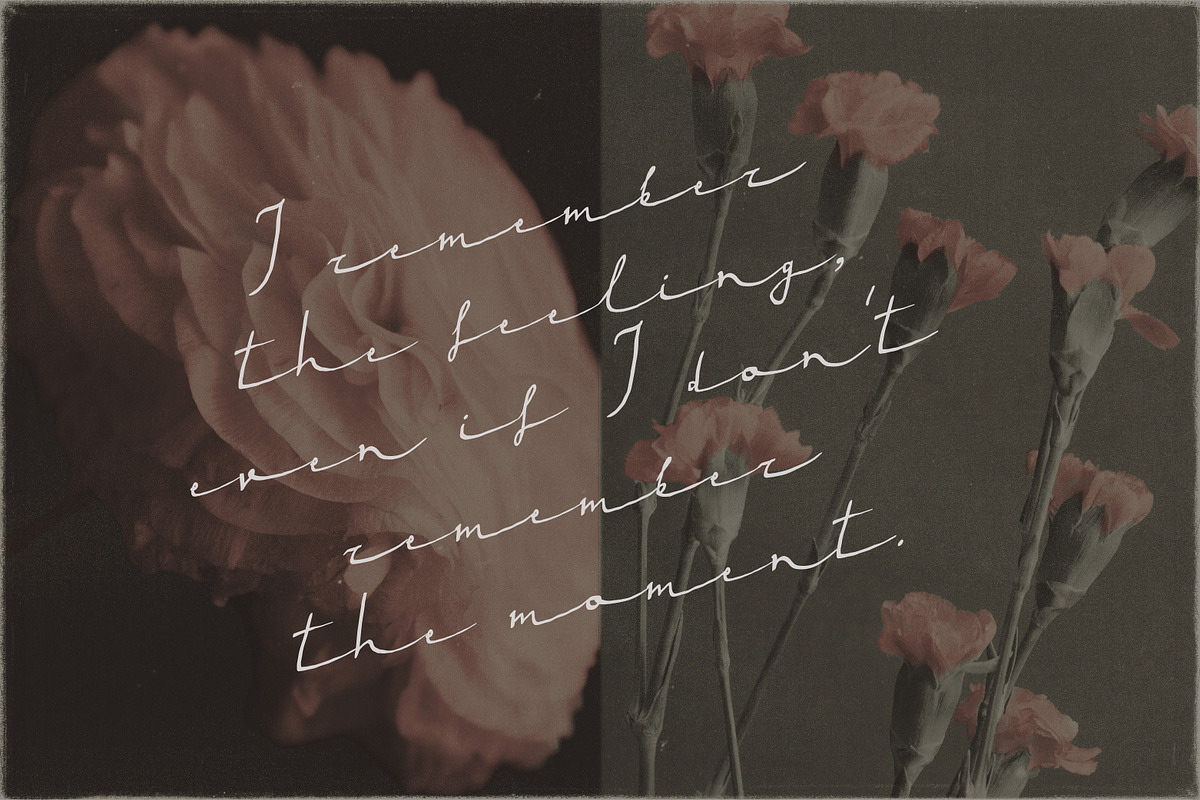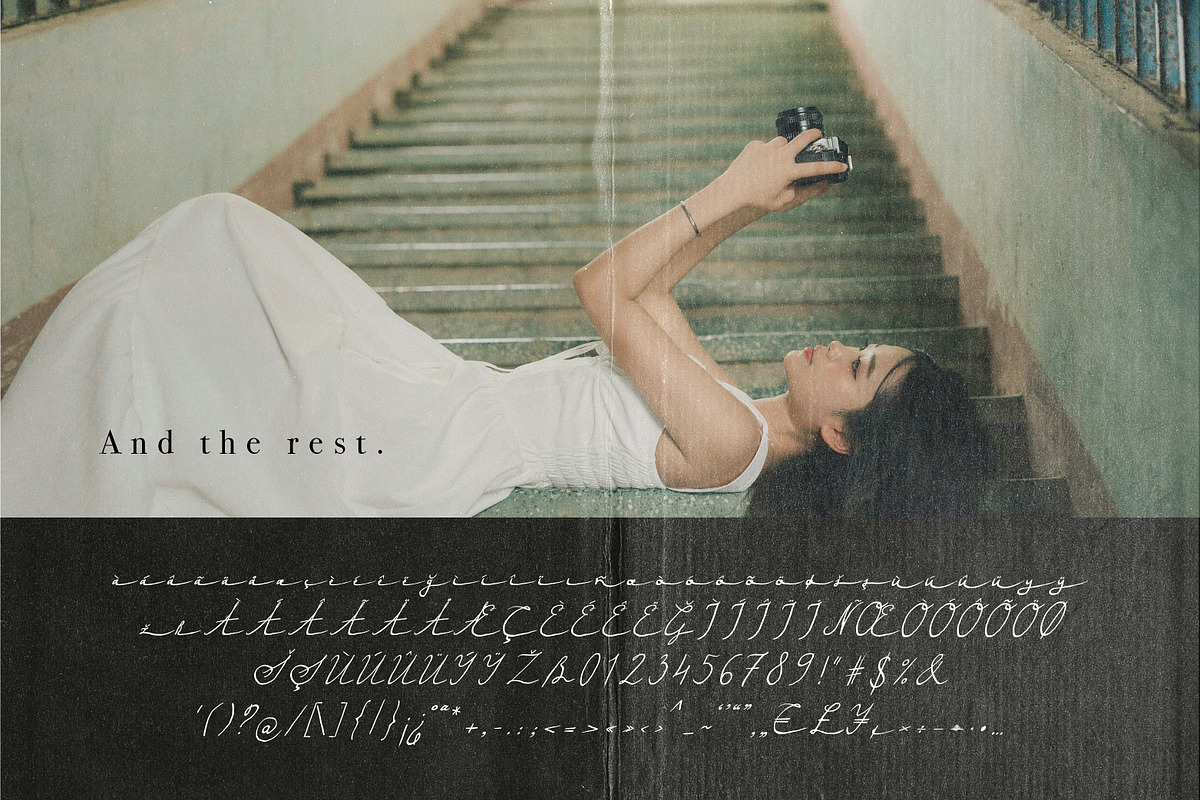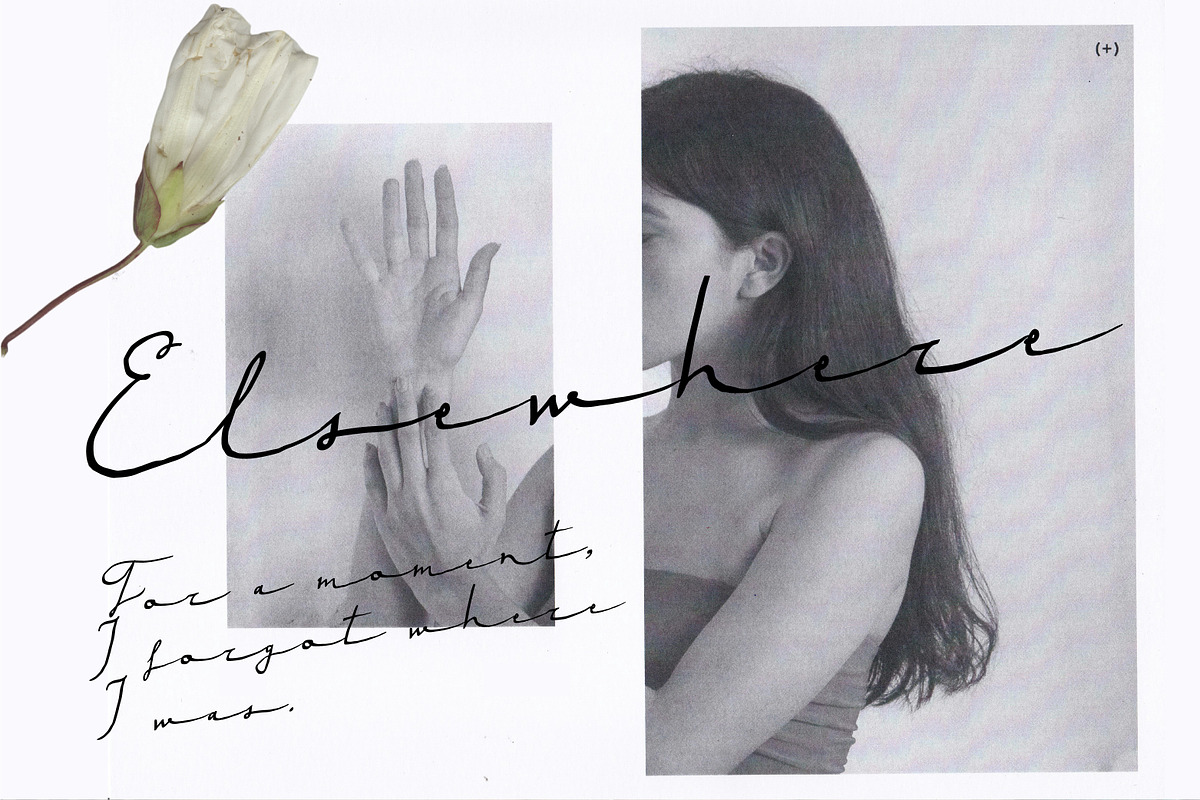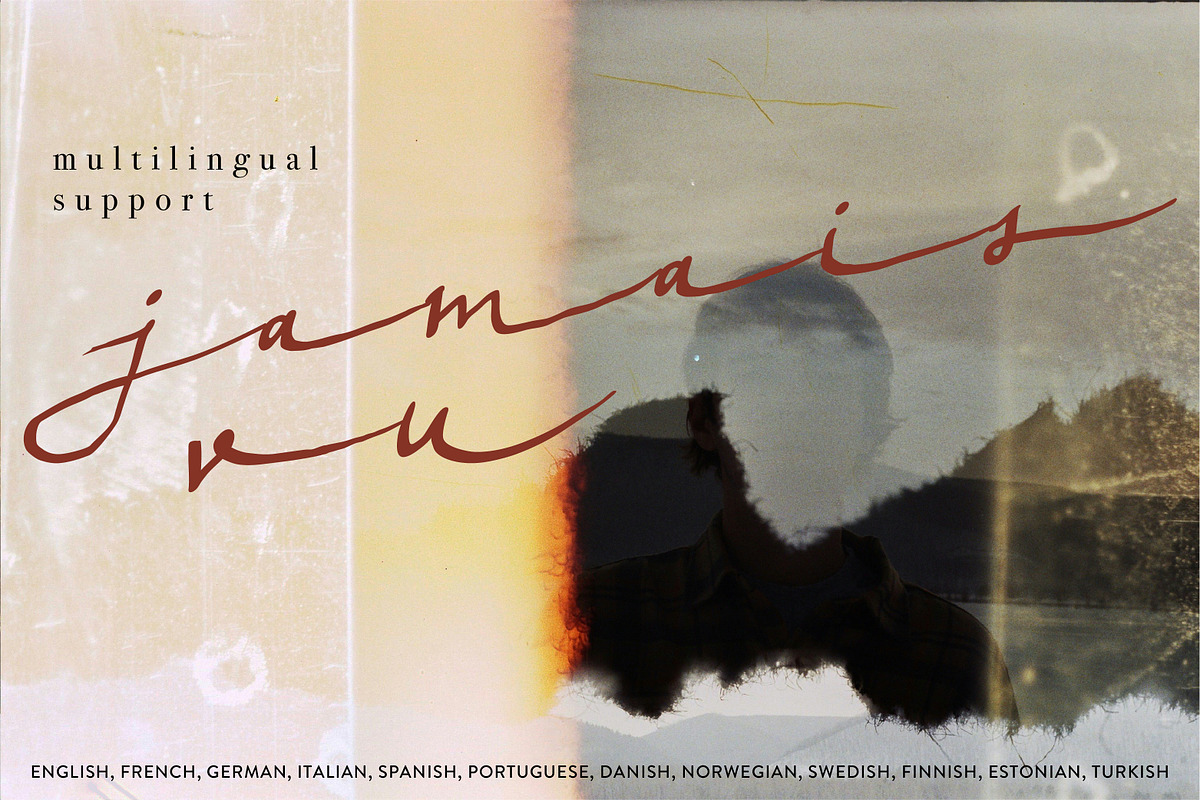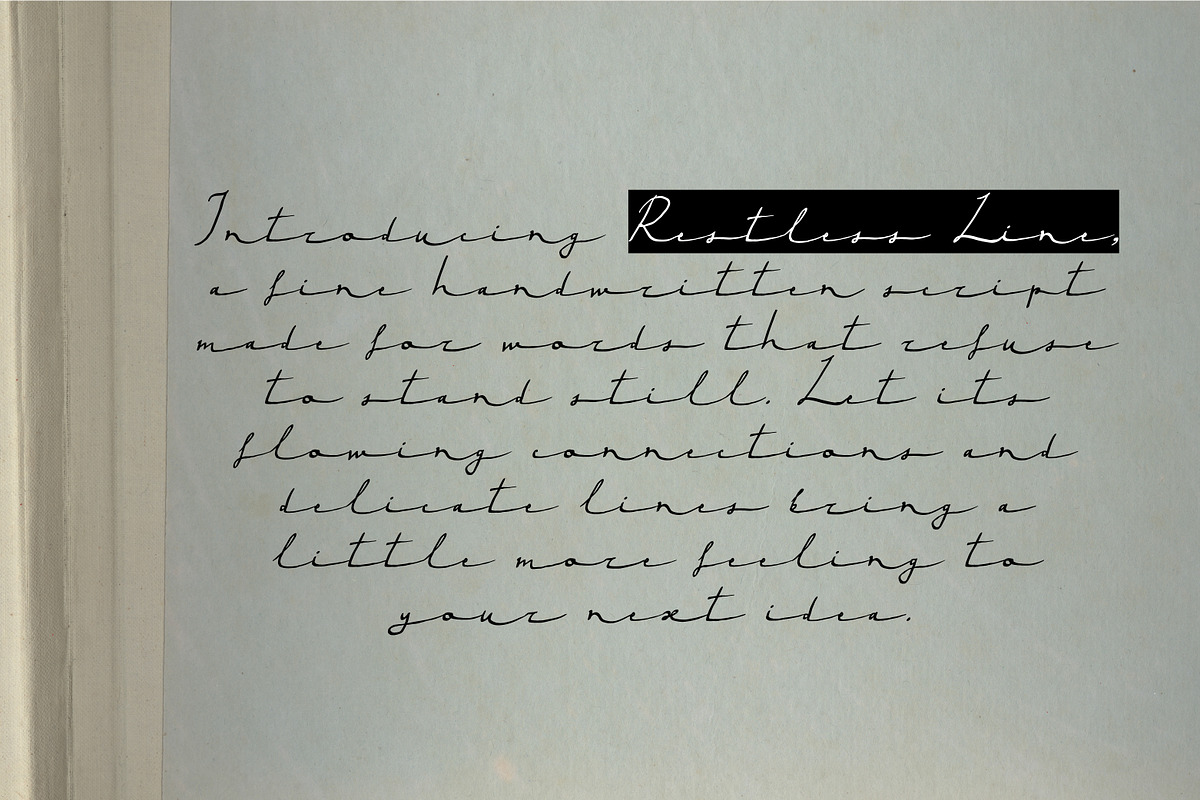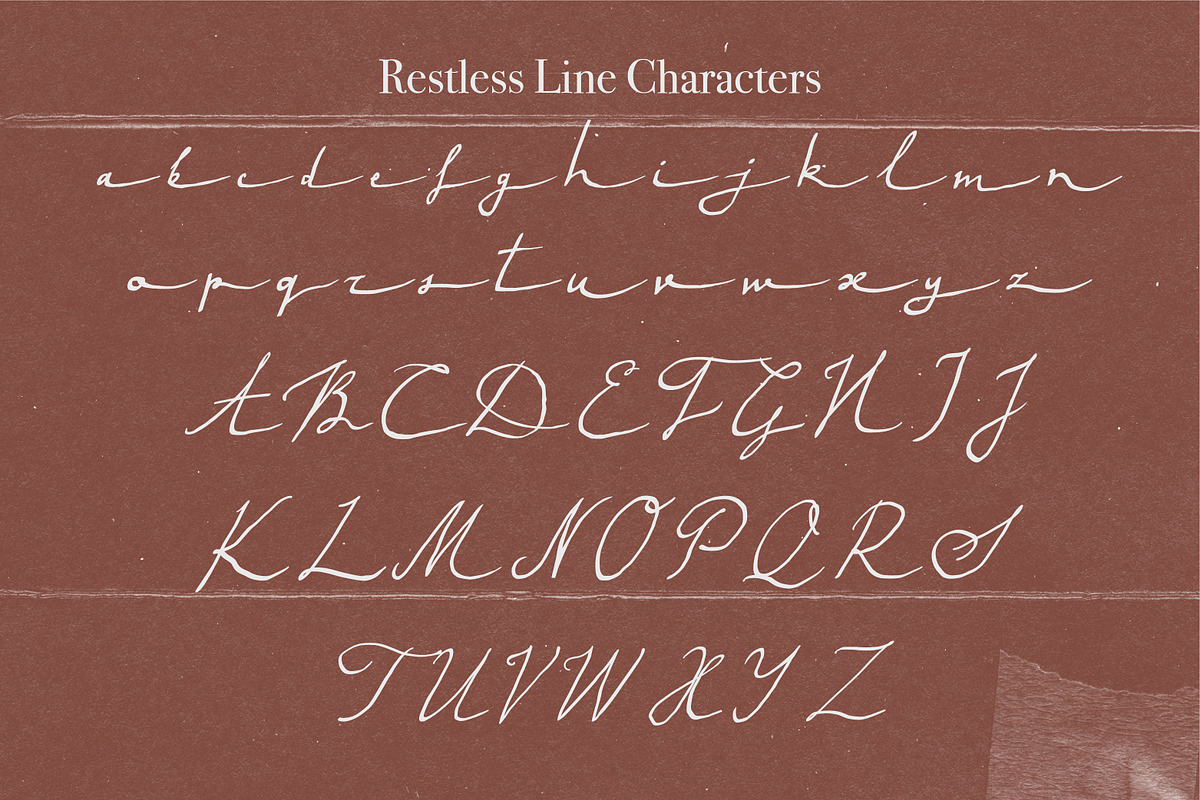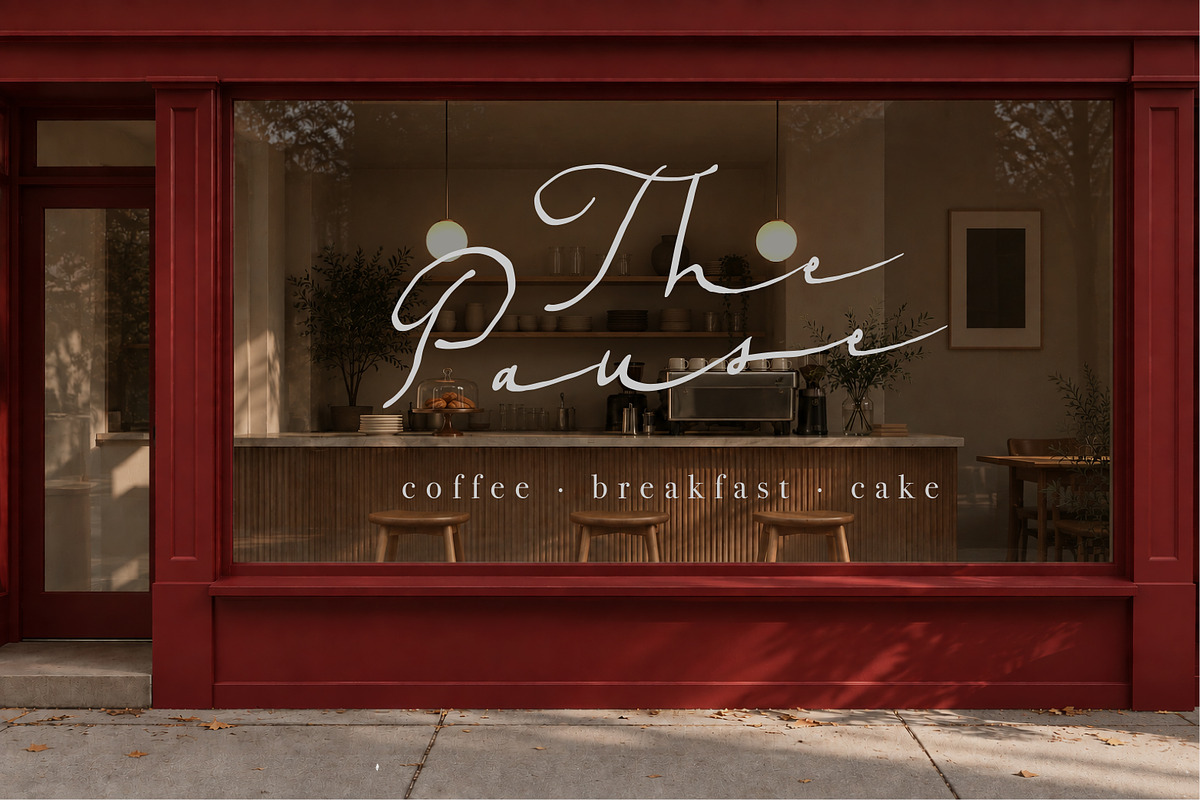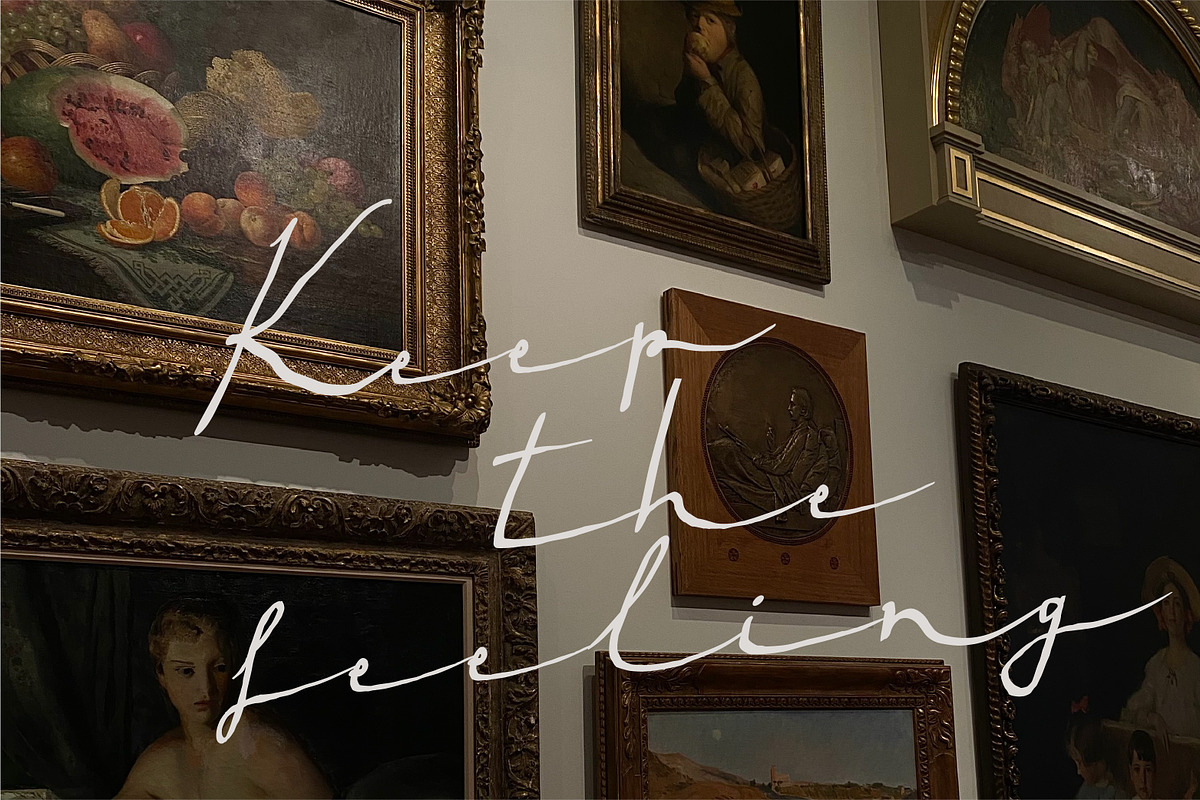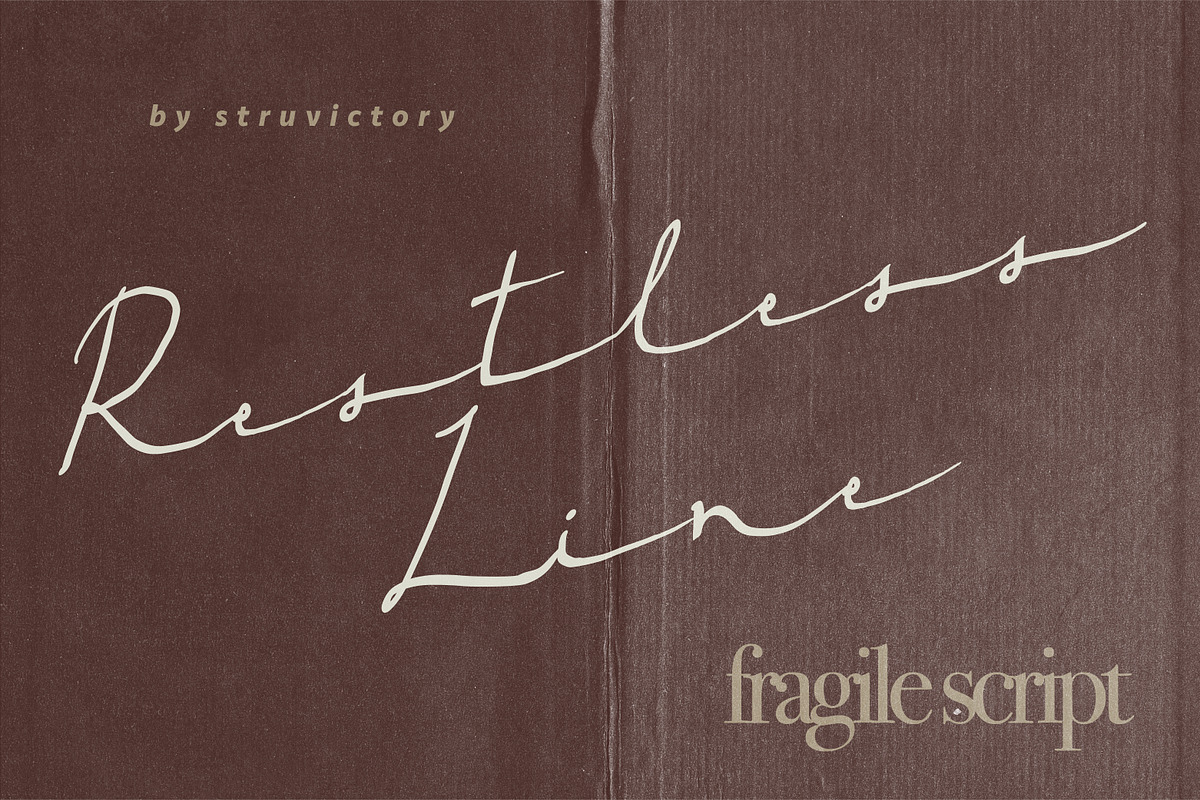
RestlessLine Fine Handwritten Script
Restless Line is a delicate handwritten script with a fine monoline stroke, elongated connections, and expressive flowing letterforms. Its distinctive uppercase and graceful lowercase forms create an artistic, atmospheric look that works beautifully for fashion, beauty, editorial, branding, packaging, posters, invitations, and album artwork. Designed to shine at larger sizes, Restless Line turns words into an elegant visual gesture.
Restless Line supports the most popular latin-based languages, you can check the symbol you need by typing a couple of words in the font preview box.